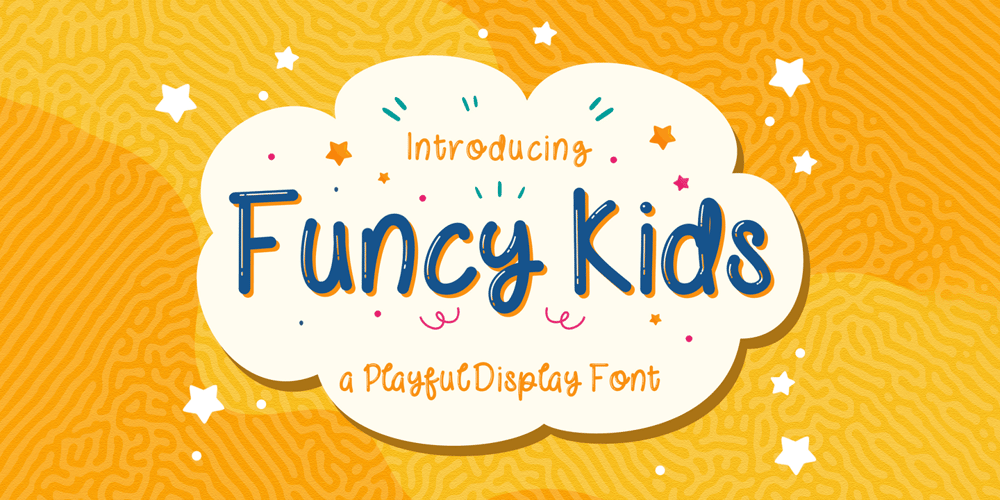
Funcy Kids
Funcy Kids font
Funcy Kids Font Family was designed by Virgiawan Listanto and published by Stringlabs Creative Studio. Funcy Kids contains 1 styles and family package options. Funcy Kids is a cute and quirky display font. It will add an incredibly joyful touch to your designs. Add this beautiful display font to each of your creative ideas and notice how it makes them stand out!